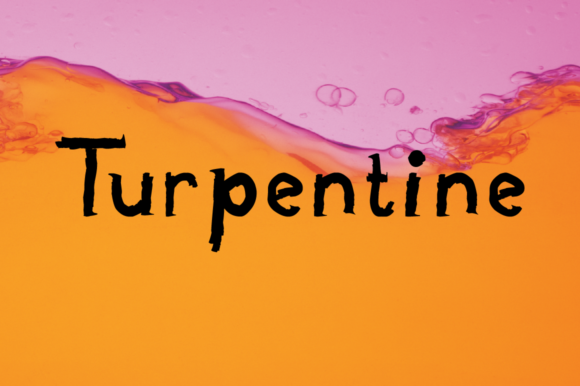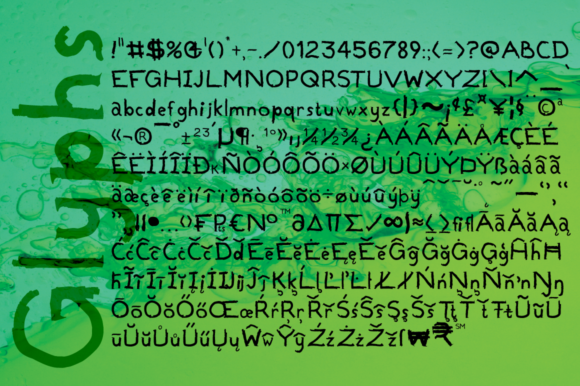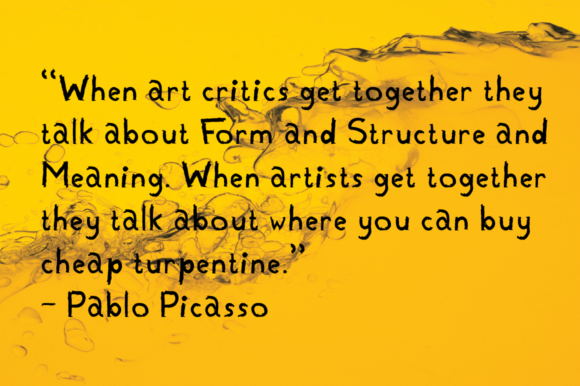
Turpentine
About Turpentine Font
Turpentine is a cute and rough lettered display font. A little bit quirky, this font looks incredibly adept on a wide variety of contexts!